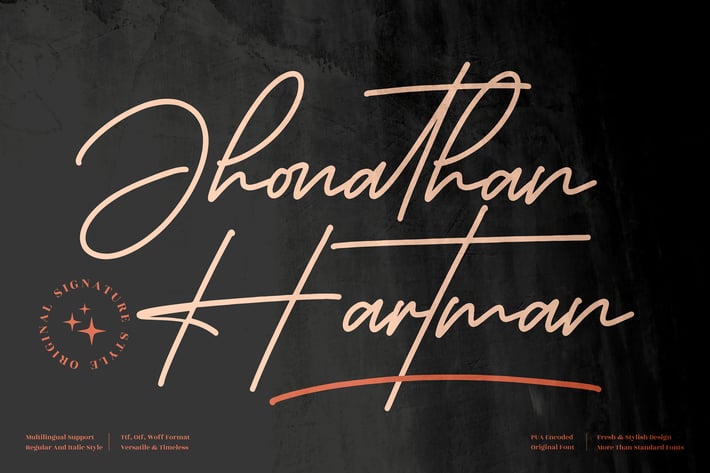
Jhonathan Hartman Signature Font
Jhonathan Hartman is a bold signature script with confident strokes and a sleek modern flow. Its handcrafted lines feel personal yet professional, making it perfect for high-end branding, standout signatures, and social media visuals that need a strong, stylish identity.
Modern signature script with bold, flowing strokes
Clean, confident letterforms for logos and name marks
Natural handwritten feel with subtle texture and character
Works beautifully across both digital and printed brand assets
Confident signature lines for brands that want to feel personal and premium.